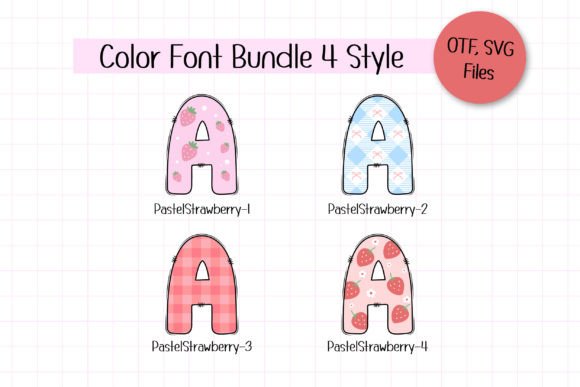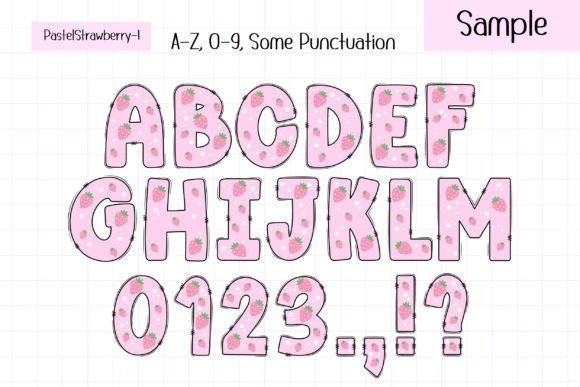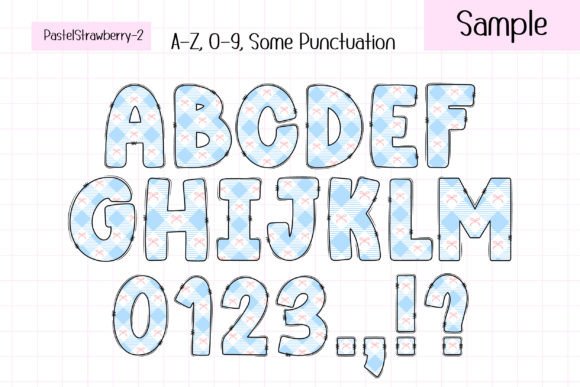
Introduction to Pastel Strawberry Font
Introducing “Pastel Strawberry” a charming font set inspired by the adorable shapes of strawberries and infused with pastel colors to evoke sweetness and brightness.
With 4 font styles and 20 bonus matching clip art pieces, this font collection allows you to add a touch of cuteness and whimsy to your creative projects Whether you’re working on custom DIY craft projects, personalizing names, designing posters, or exploring various other creative endeavors, “Pastel Strawberry” is the perfect choice to infuse your designs with charm and playful elegance.
Key Features of Pastel Strawberry Font